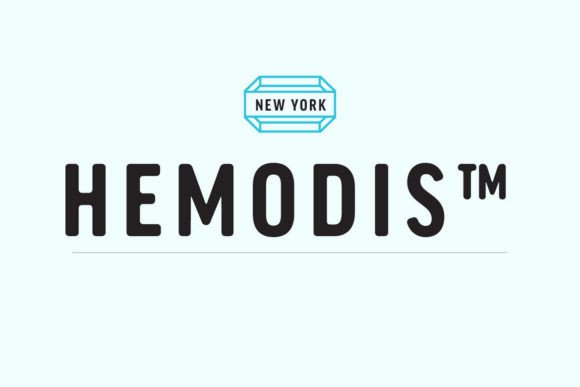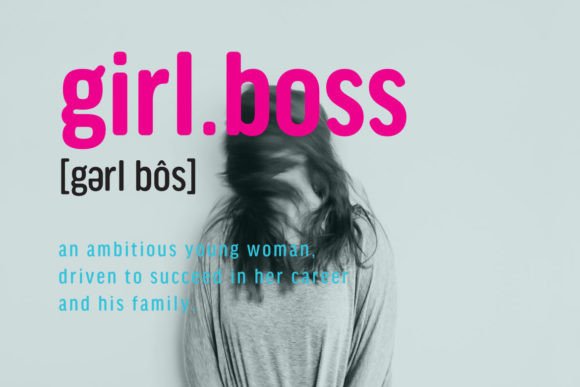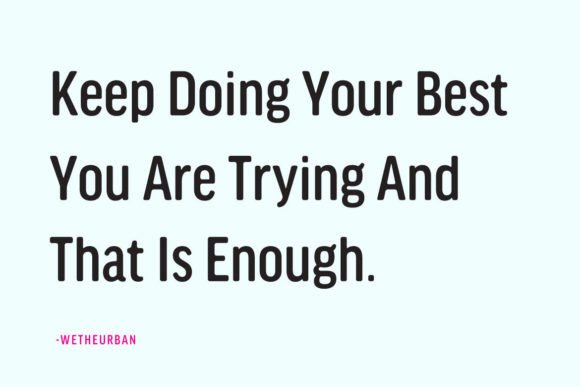
Introduction to Gratique Font
Gratique is a semi-rounded sans-serif typeface.
The curvature of the corners fits perfectly and makes it look so cool Gratique is perfect for headings, typography, branding, mockups, or any other design you need.